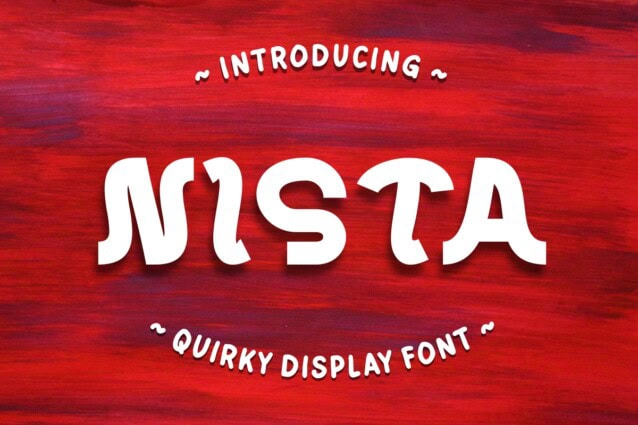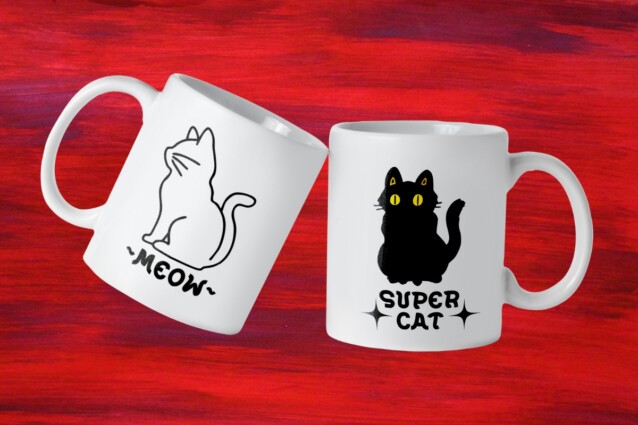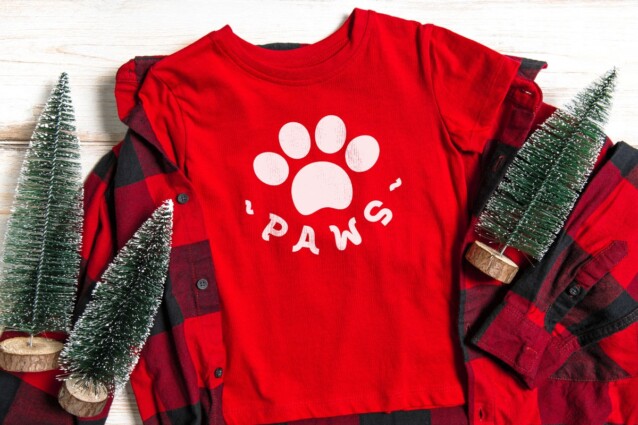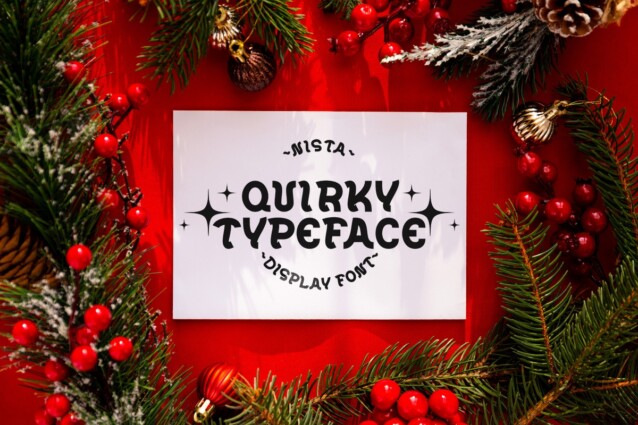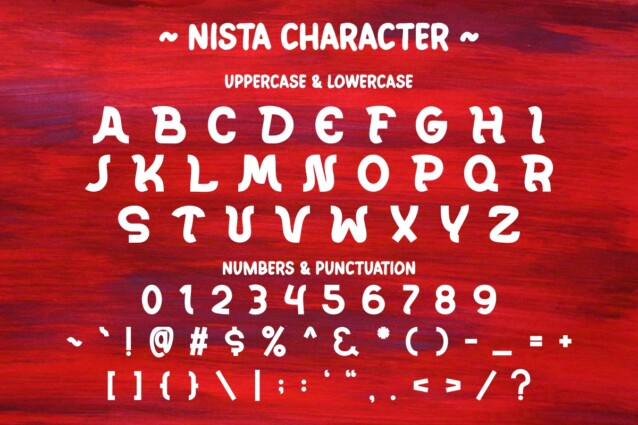
Nista Font
Nista Font, our quirky display font tailor-made to add a playful and unique touch to your design endeavors. This versatile typeface effortlessly combines charm and character, making it the perfect choice for a wide range of design projects.